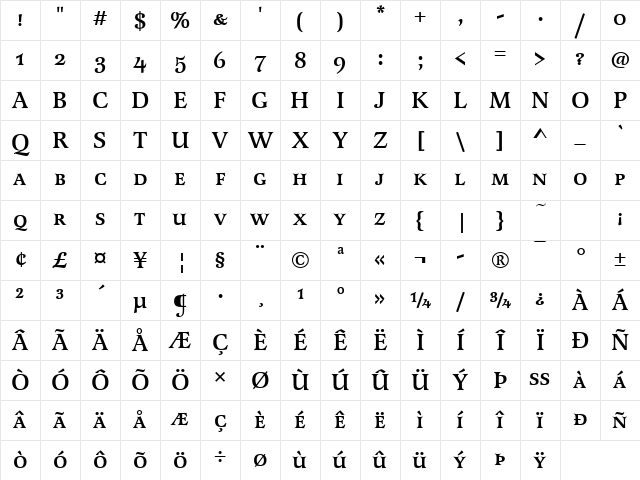
LatienneSCTMed Regular
Design Context for LatienneSCTMed
LatienneSCTMed is a composed and adaptable typeface that performs quietly and consistently across a wide range of design contexts.
Pro Tip: Use LatienneSCTMed in both headline and body roles to test its range before committing to a single application.